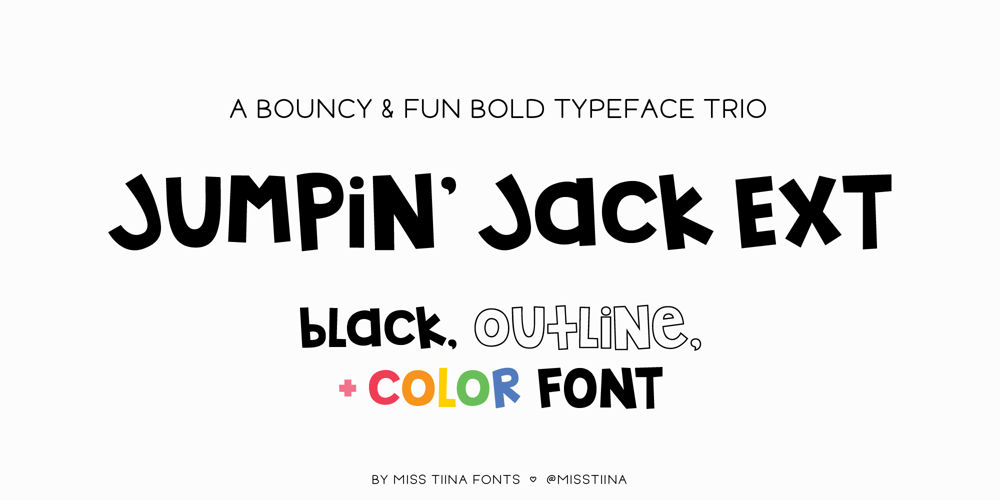
MTF Jumpin Jack EXT Font Family was designed by Tina Raparanta and published by Miss Tiina Fonts. MTF Jumpin Jack EXT contains 3 styles and family package options. Jumpin’ Jack Extended is a fun, cartoon-like display font capable of taking any product out of the ordinary! Use it on bold and bright creations such as banners, posters, covers, titles, magazines, etc. This bouncy fun font is a perfect addition to your collection!